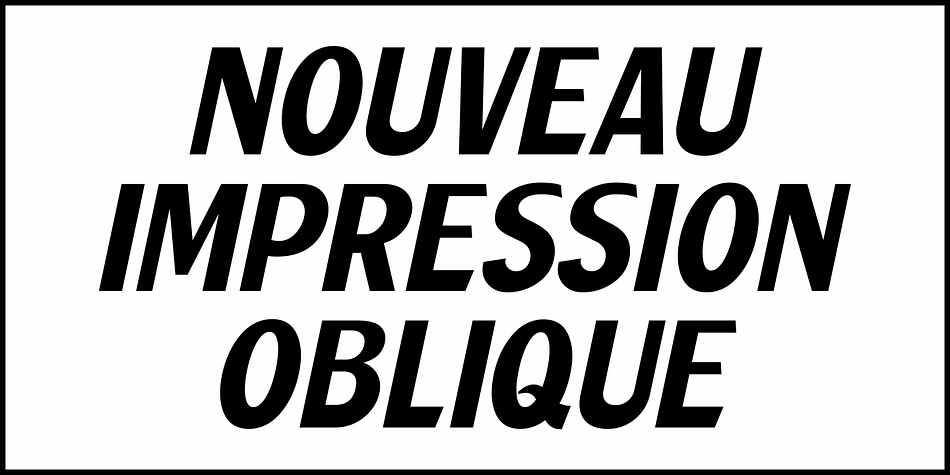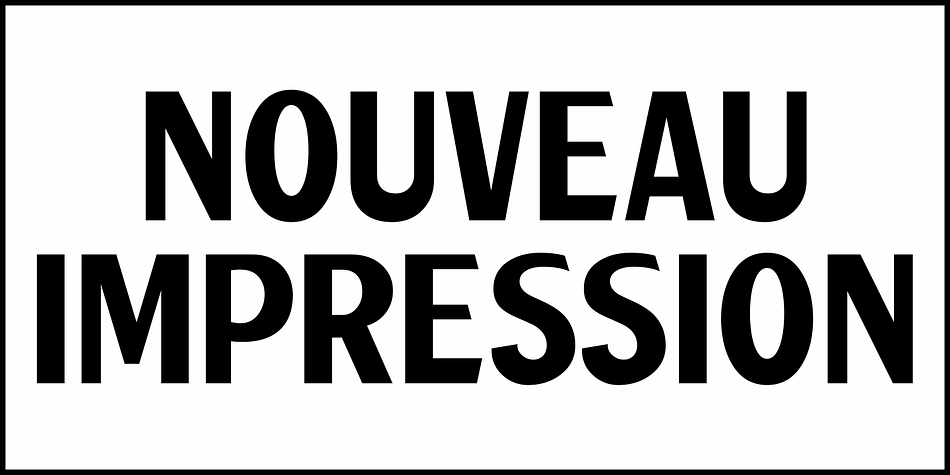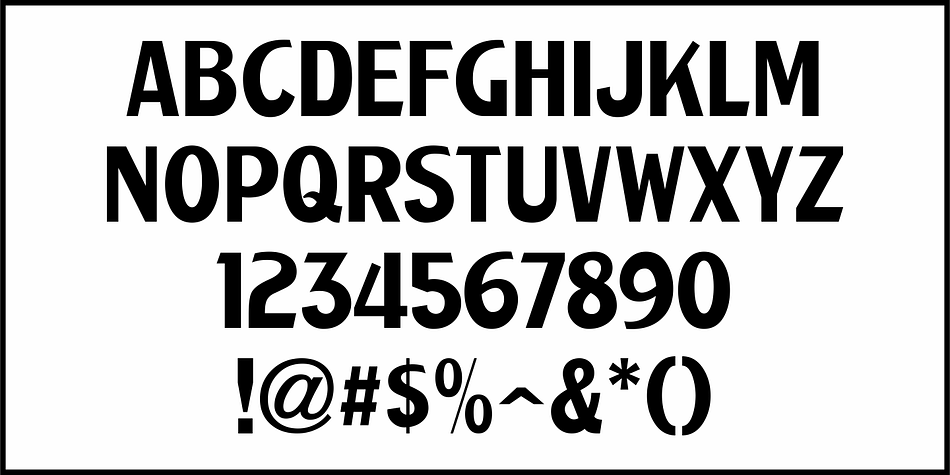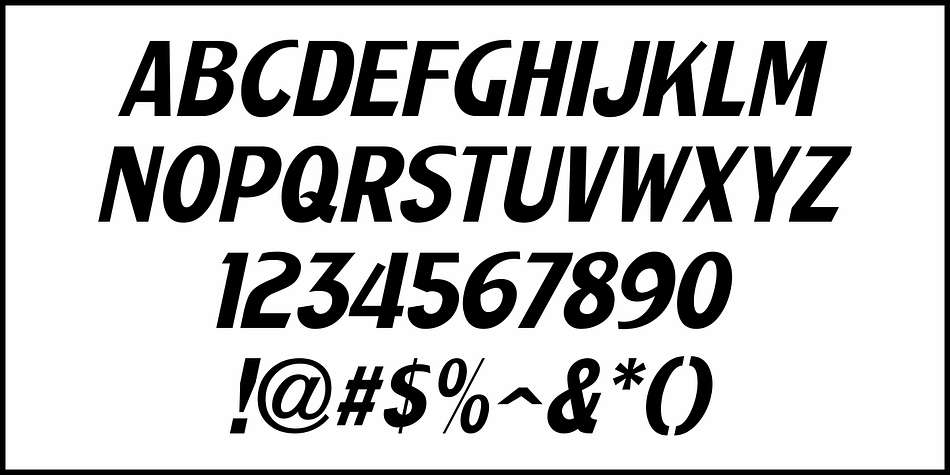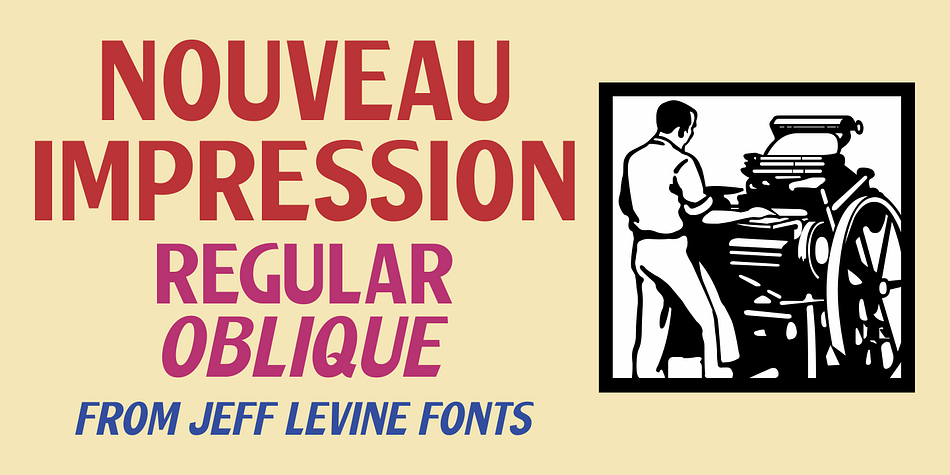
NOUVEAU IMPRESSION JNL
Designed by Jeff Levine, Nouveau Impression JNL is an art nouveau and display sans font family. This typeface has two styles and was published by Jeff Levine Fonts.
Inspired by an image of some Art Nouveau wood type spotted online, Nouveau Impression JNL is available in both regular and oblique versions.